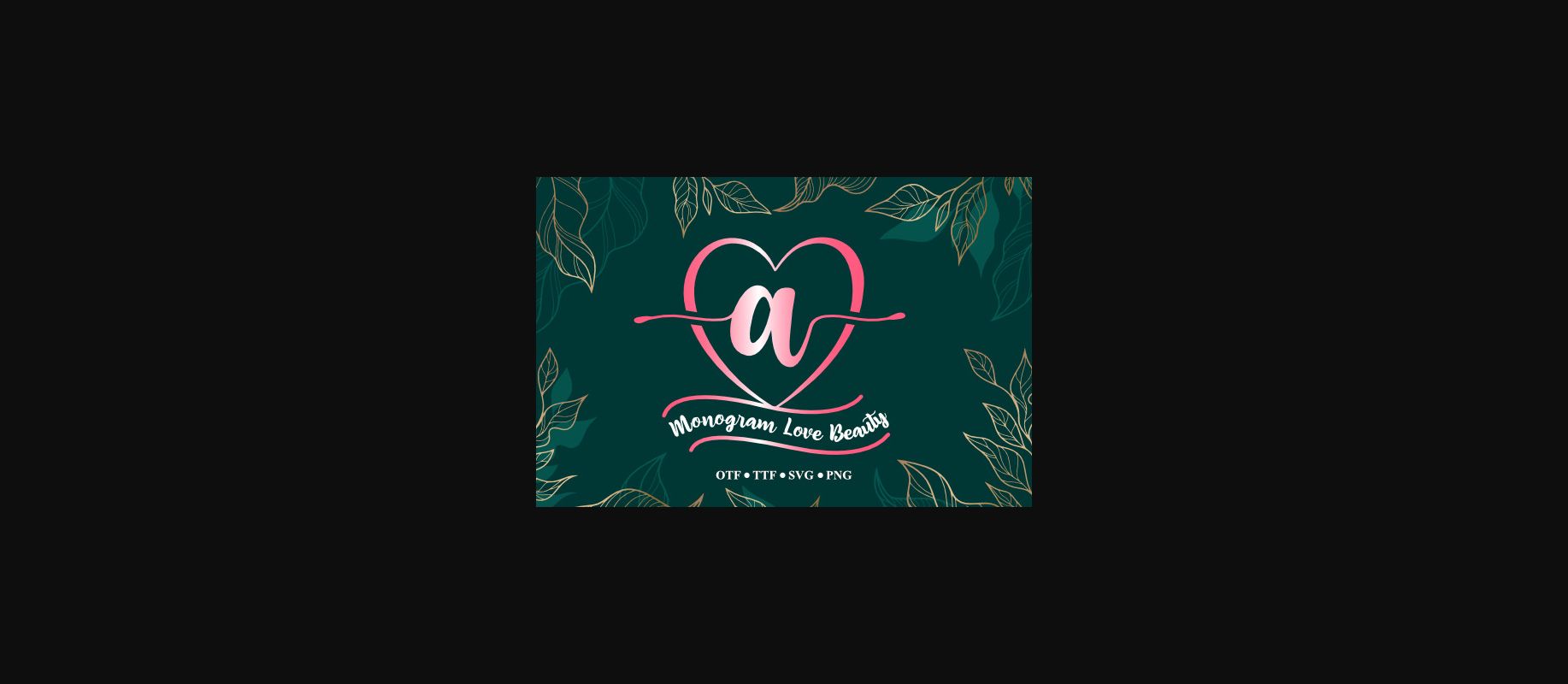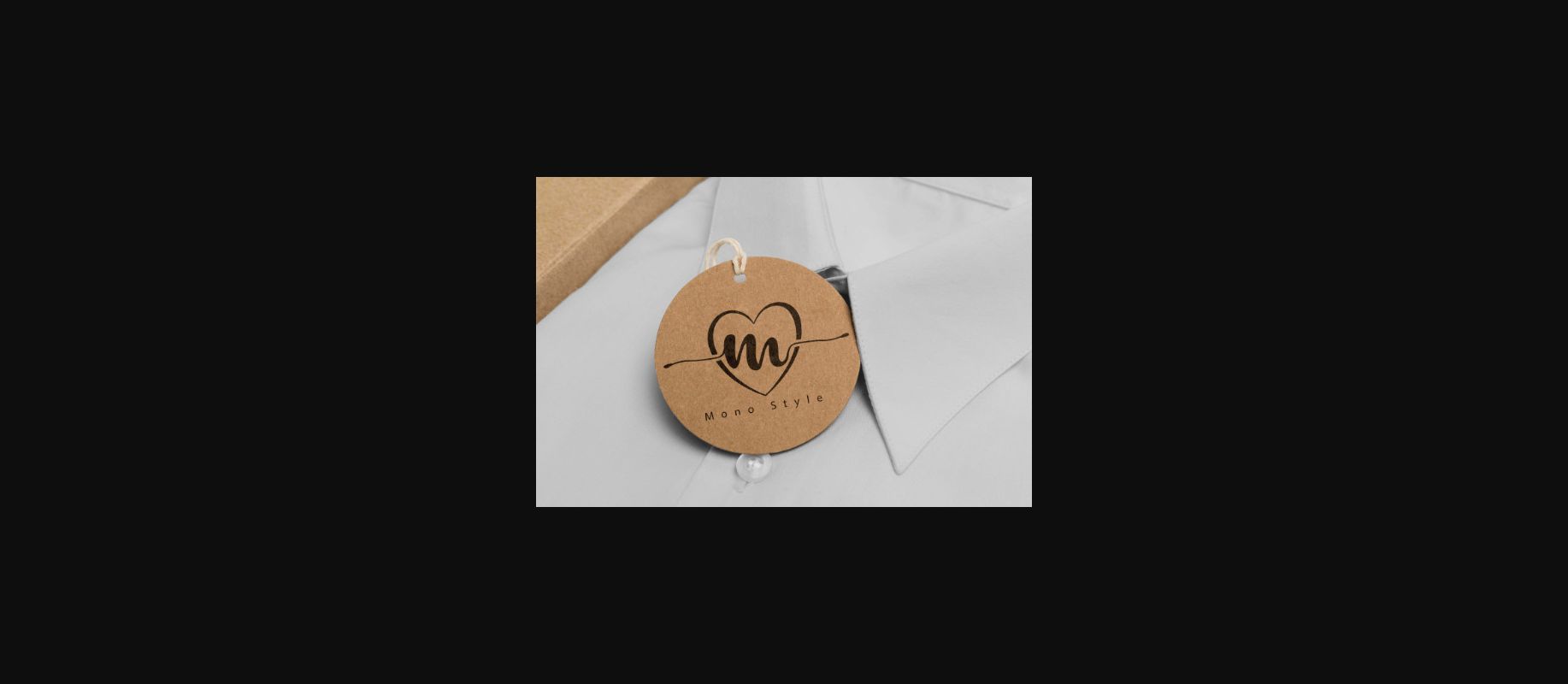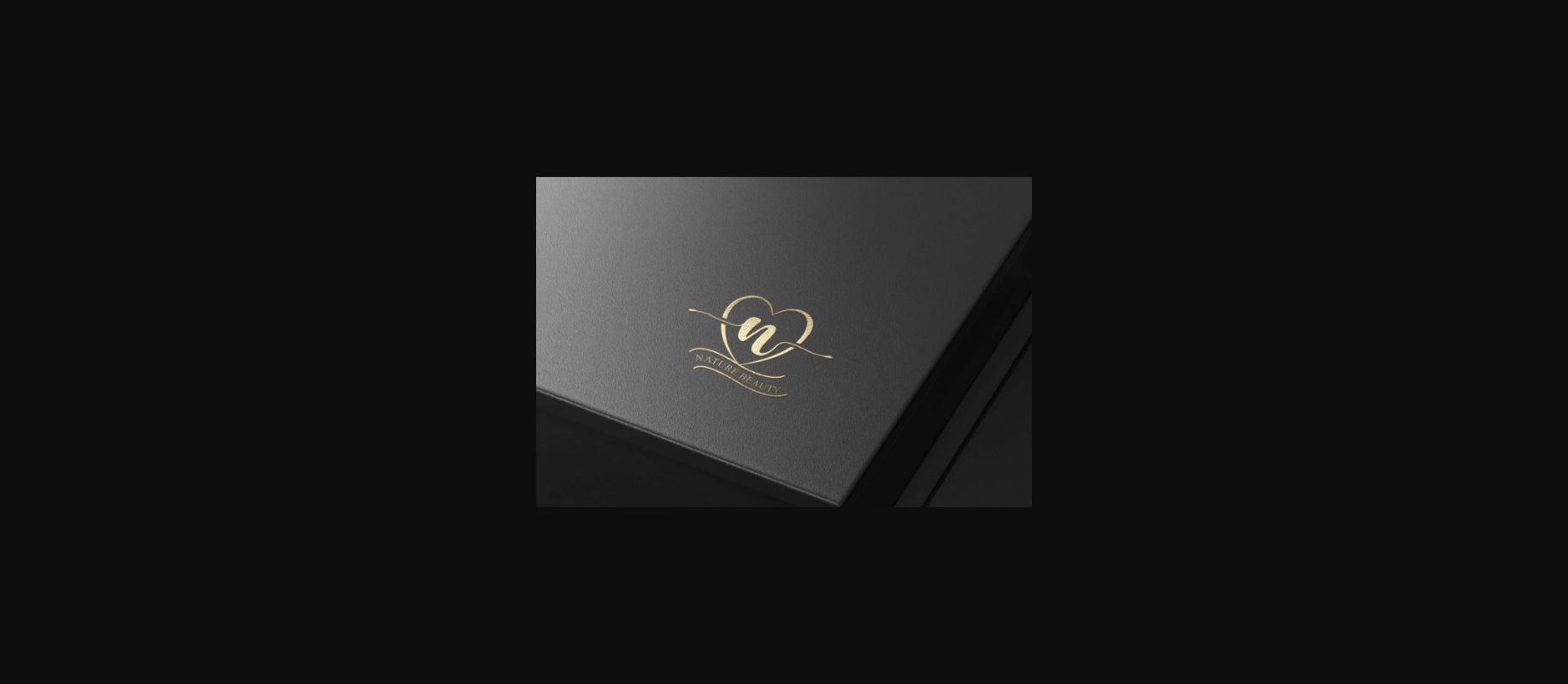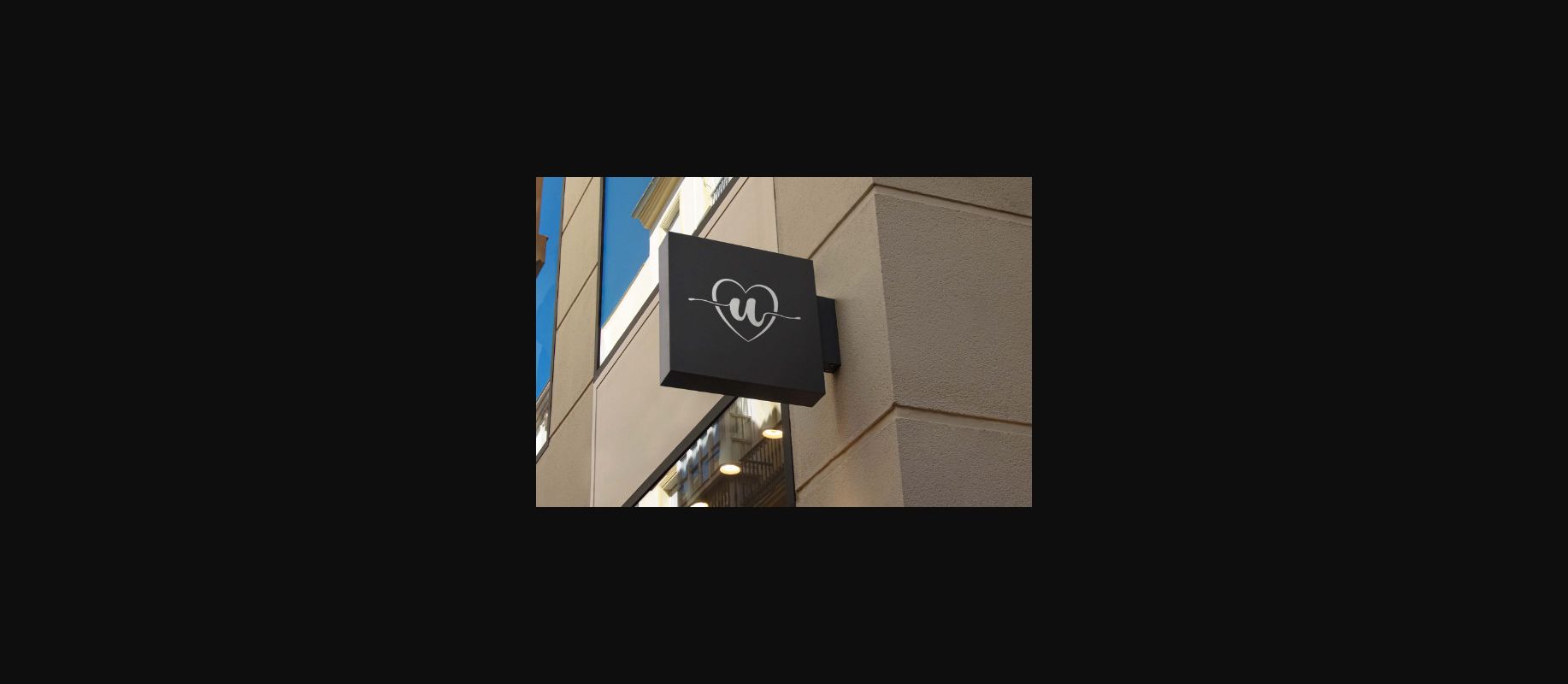
Monogram Love Beauty Font
About Monogram Love Beauty Font
Monogram love beauty is a splendid decorative font that looks so chic and romantic. It’s a great choice for personalized name tags, product packaging, stationery, and many other projects!